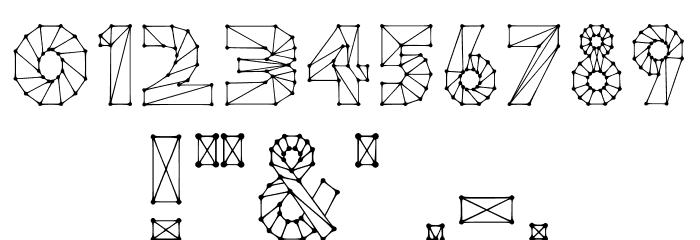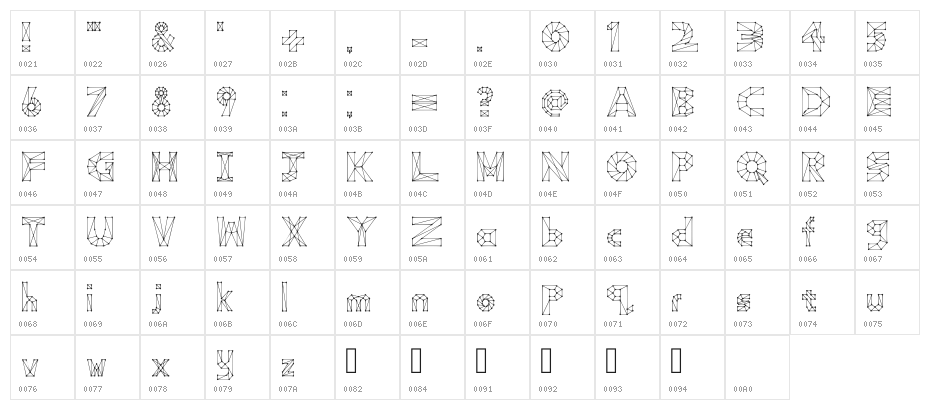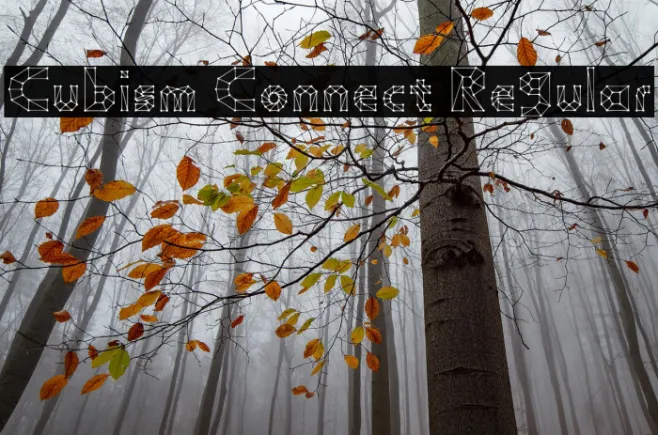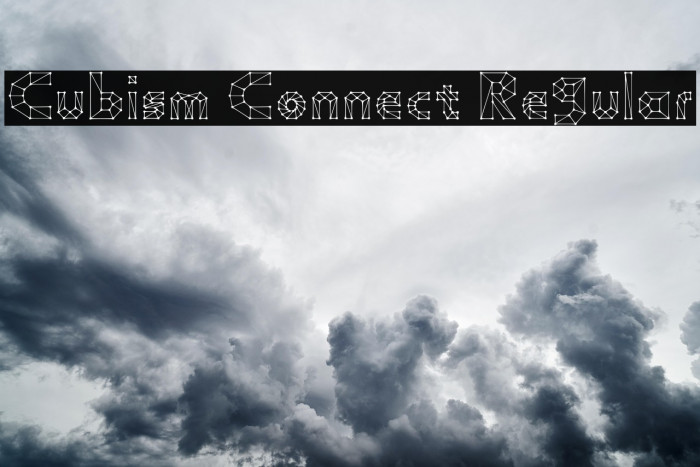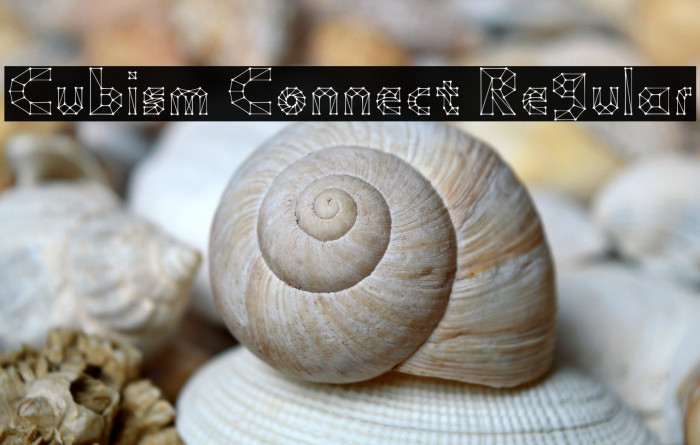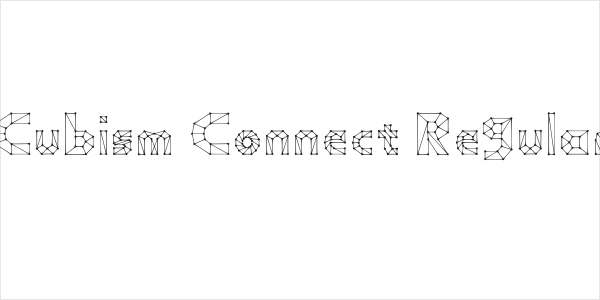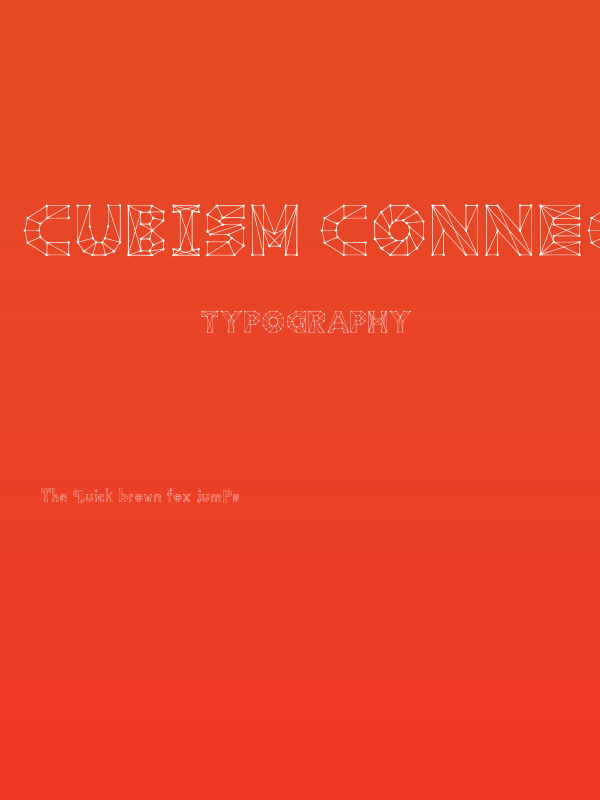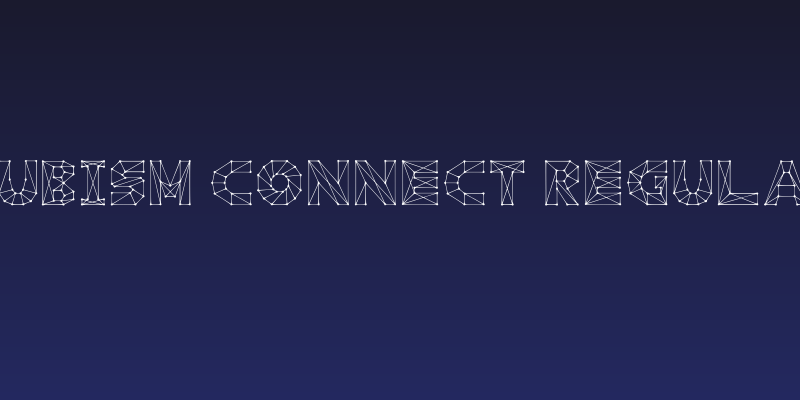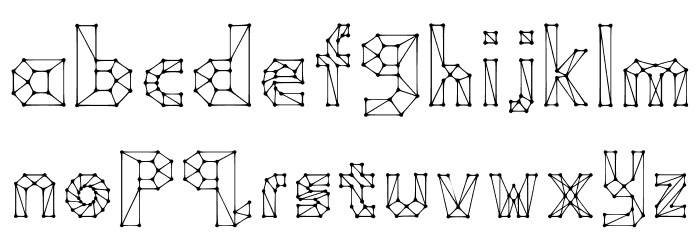
Cubism Connect Regular Font
Cubism Connect Regular Description
This font features a unique geometric design inspired by cubism, with each character constructed from interconnected lines and shapes, creating a faceted, three-dimensional appearance. The uppercase and lowercase letters, as well as numbers and special characters, maintain a consistent style that emphasizes angularity and abstraction. The intricate line work gives the font a modern and artistic feel, making it stand out in any design project. Its distinctive style is both decorative and functional, suitable for creative applications where a bold statement is desired.